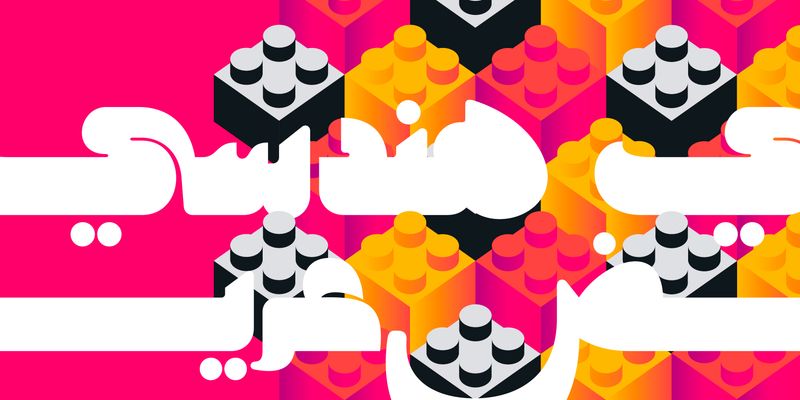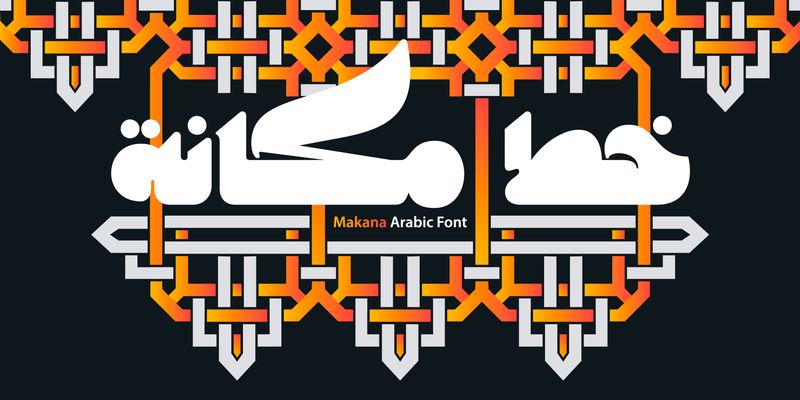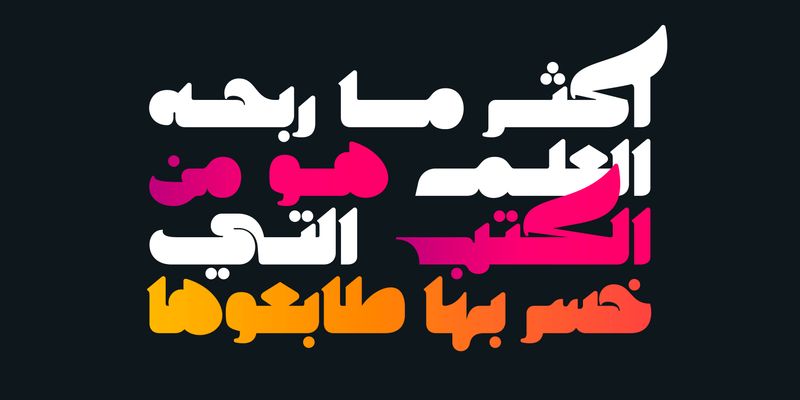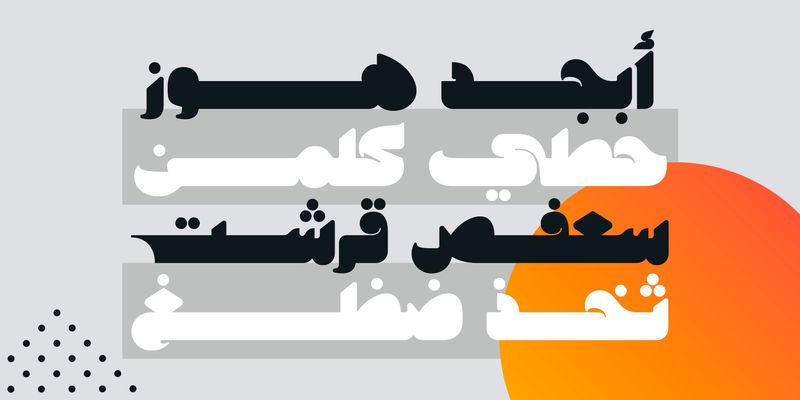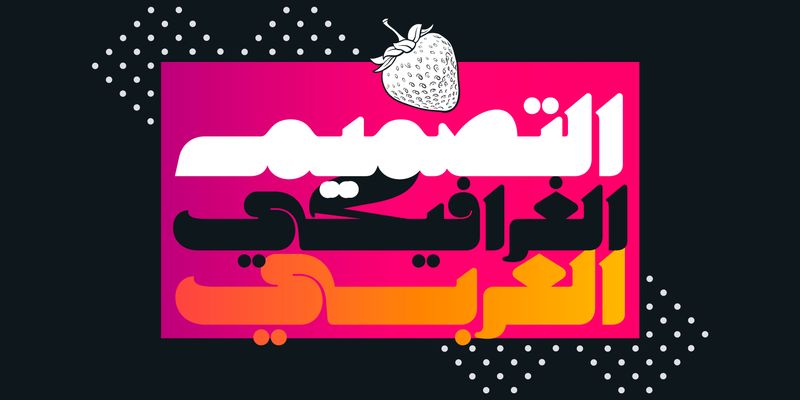
Makana (the Arabic word for “Prestige”) is an Arabic display font with a contemporary design. The font features an extra‑heavy letterform structure that captures attention while adding a distinctive tone of voice to text. It also includes an additional stylistic set of glyphs with a calligraphic touch. Makana is suitable for all creative projects, including web, print, and mobile applications.
Mostafa El Abasiry is an independent Arabic type designer whose work has helped define a new era of expressive Arabic typography. Since 2009, he has built a distinctive and influential catalogue of Arabic typefaces known for their bold geometry, modern aesthetics, and emotionally resonant visual character. His designs are widely recognized for merging the structural clarity of geometric construction with the creative freedom of contemporary display typography.
Mostafa’s approach is rooted in a balance of mathematical precision and artistic intuition. Many of his typefaces begin as geometric studies - circles, arcs, grids, and modular systems, before evolving into expressive display families with strong visual identity. Other designs explore texture, layering, and experimental forms, expanding the expressive potential of Arabic letterforms in digital environments.
In 2017, Mostafa introduced Tajreed, the first Arabic OpenType‑SVG color font ever created. This pioneering work brought textured, multi‑layered Arabic typography into mainstream digital use and opened a new category of expressive Arabic tools for designers and everyday creators. Tajreed later grew into a broader ecosystem of textured and experimental families that influenced how Arabic typography appears in mobile apps, creative platforms, and user‑generated content.
Mostafa’s typefaces have been used by a wide range of clients, from global brands such as Apple TV+ and Turkish Airlines to millions of everyday creators. Despite this reach, his design process remains deeply personal: every typeface begins with hand‑drawn sketches, geometric construction, and a search for a unique visual voice rooted in Arab visual culture.
Today, Mostafa continues to expand his catalogue with new display families, textured experiments, and modern interpretations of Arabic typographic heritage. His work aims to give designers and creators expressive tools that did not exist before - tools that make Arabic typography feel bold, modern, and alive.